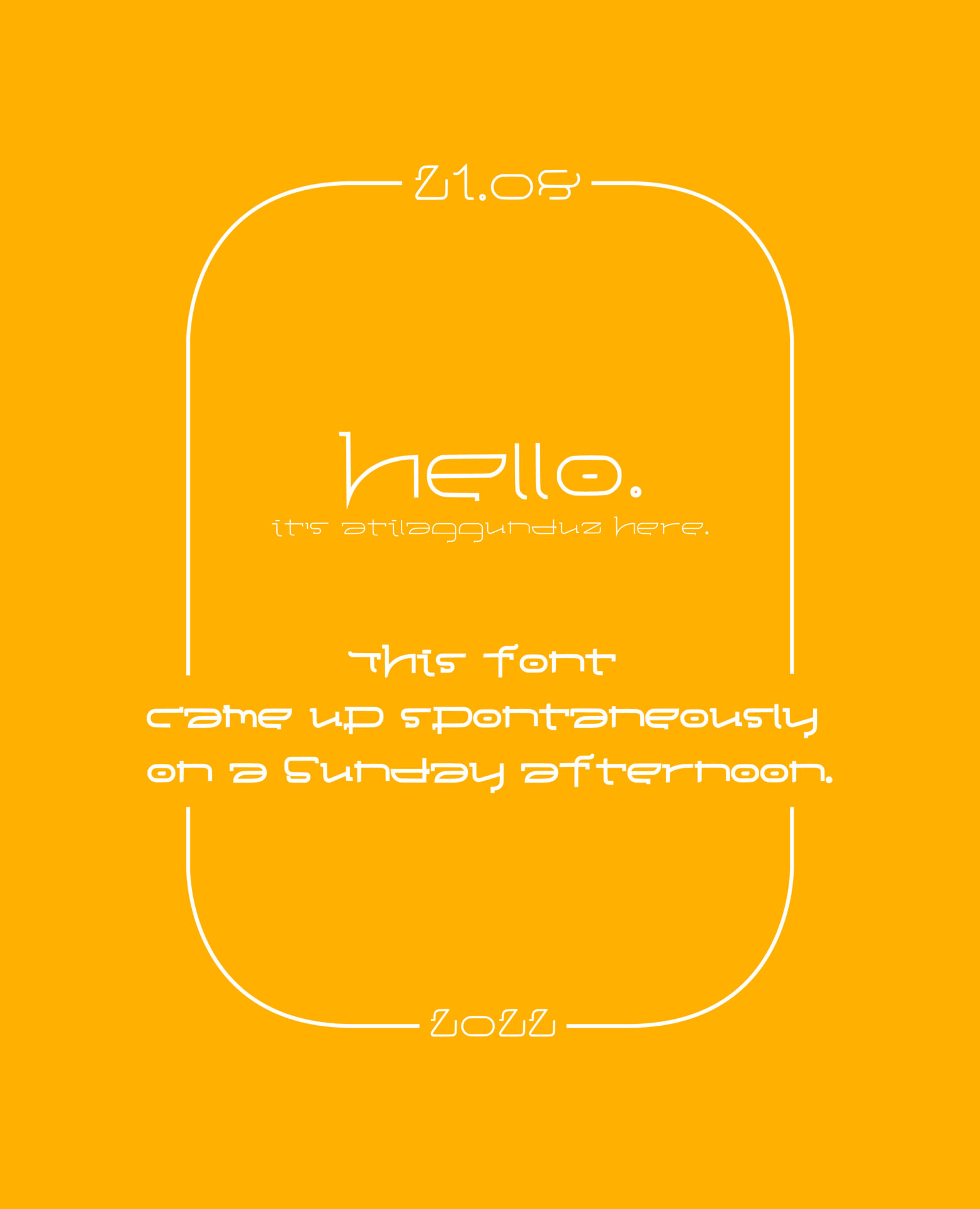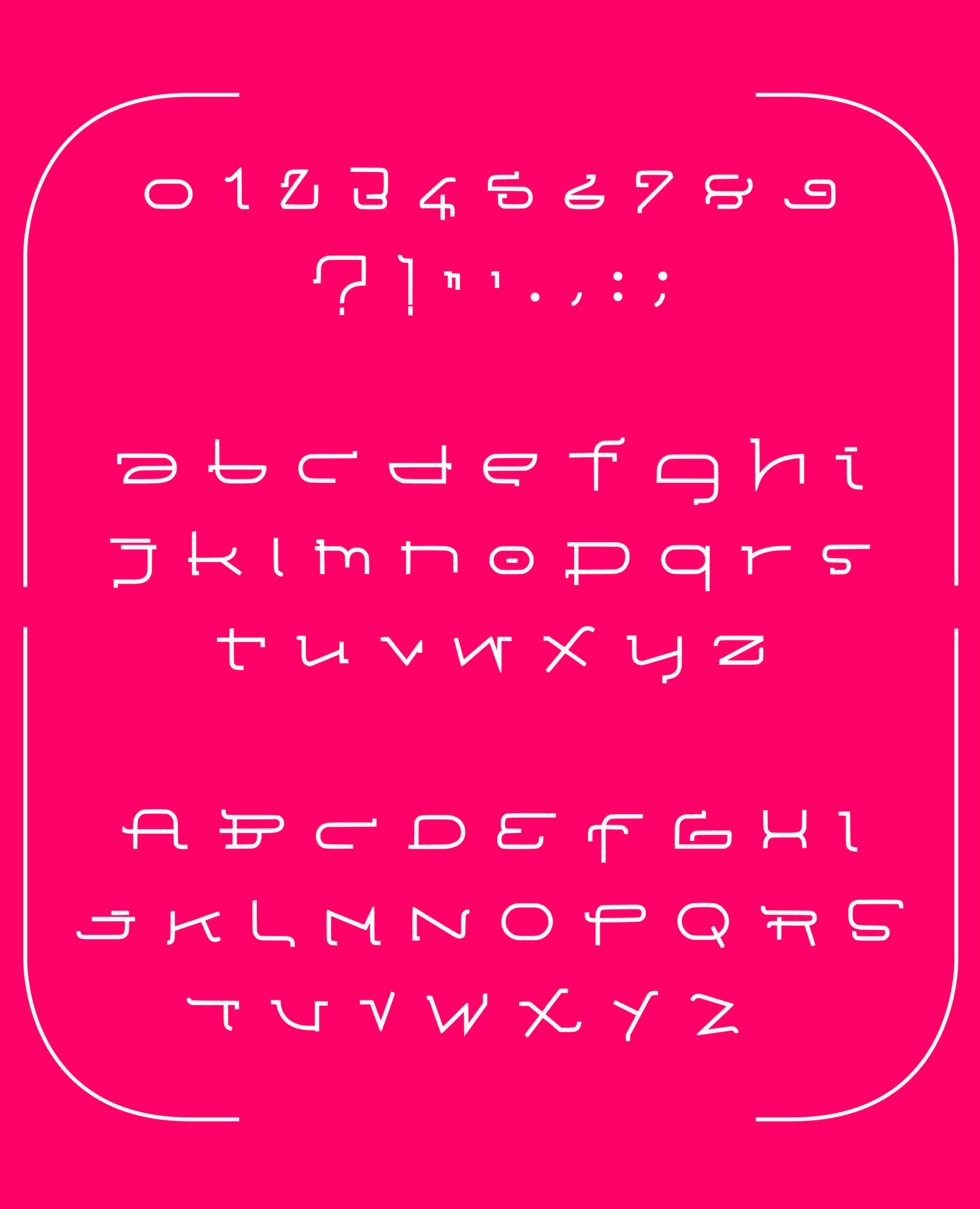
Font: Sundai
on a Sunday morning, Atıl Aggündüz, just as he got out of bed, sat in front of the computer and designed this font to overcome his Sunday morning boredom.
it was inspired by the graphics of the “Hebrew” and added a Hebrew-influenced cursive language to the Latin script.
PS: it can look pretty good on large, legible but assertive graphics. enjoy your “sundai” afternoon.